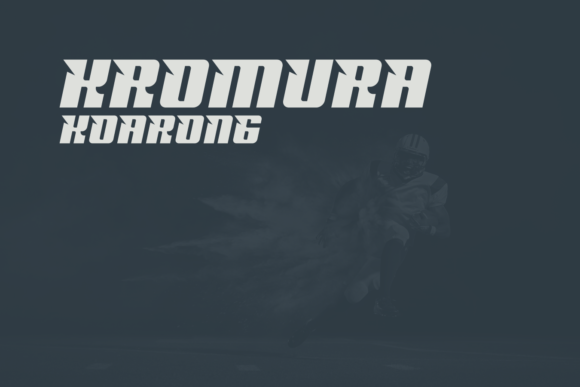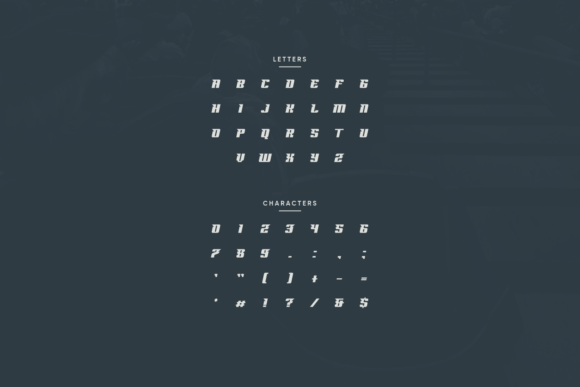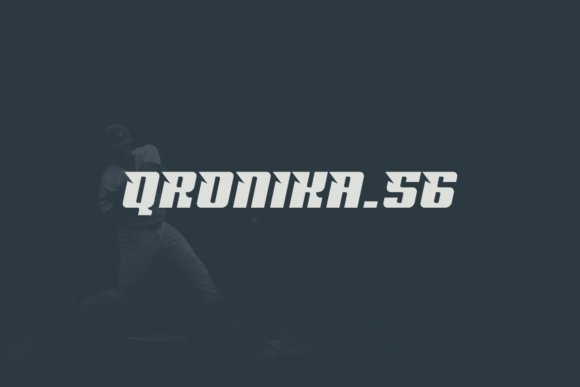
Introduction to Kironar Font
Have you ever found yourself scrolling through your favorite sports magazine, mesmerized by the bold headlines and dynamic typography? That’s exactly what happens when designers get creative with the right font – and that’s where the Kironar Font comes in. This cool sports font is more than just a design element; it’s a game-changer for any high-quality design project that needs a modern twist.
Whether you’re working on a logo, poster, or even an automotive game, the Kironar Font is the perfect design resource to elevate your creative project. With its fresh style, modern cutouts, and dynamic tilt, this font is sure to grab attention and leave a lasting impression. And the best part? It’s available for free download, making it an accessible and valuable asset for designers of all levels.
Key Features of Kironar Font
- High-quality, elegant design perfect for creative projects.
- Transparent background, allowing for seamless integration into various design elements.
- Unique characteristics, such as its sleek and modern aesthetic, make it an ideal choice for creative projects requiring a sophisticated look.
Honest Review: Kironar Font
I recently came across the Kironar Font and I must say it’s been a great addition to my design resource library. The font itself has a high quality feel to it, making it perfect for any creative project that requires a modern and sleek look.
- High quality design
- Transparent background makes it easy to use in various design projects
However, I do have to mention that the Kironar Font may not be suitable for all design projects. It’s a bit on the modern side, so it may not be the best fit for more traditional or classic designs.
- May not be suitable for traditional or classic designs
Overall, I’m really impressed with the Kironar Font and I would definitely recommend it to other designers. It’s a great resource to have in your toolkit, and it’s perfect for any creative project that requires a modern and sleek look.
Tips for Getting the Most Out of Kironar Font
Experiment with different font sizes, colors, and combinations to create unique and eye-catching designs. Use the Kironar Font for creating headings, titles, and body text to add a touch of elegance to your projects.